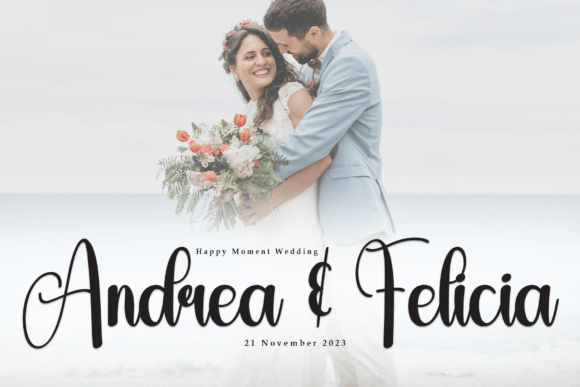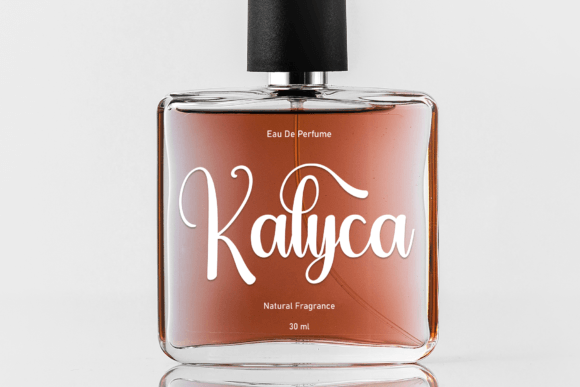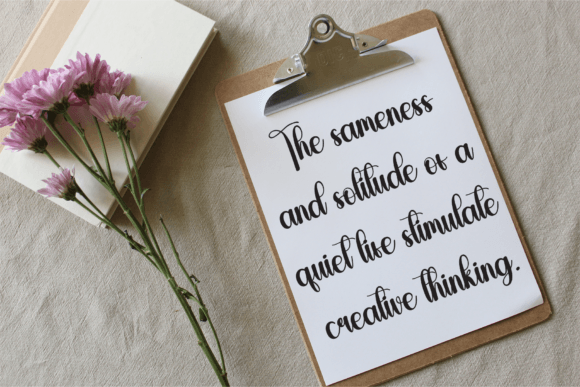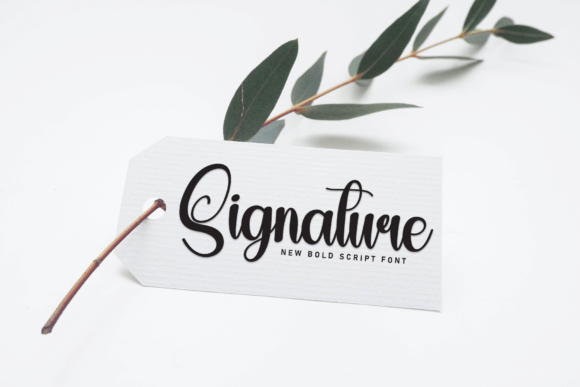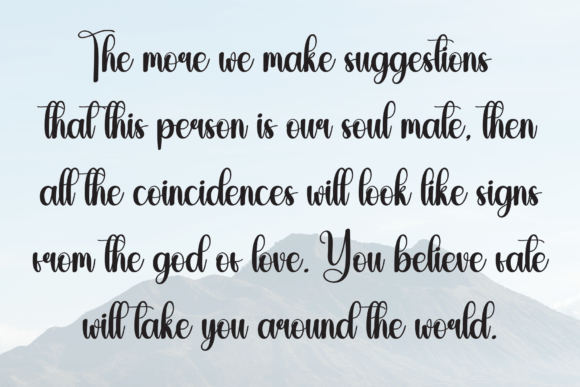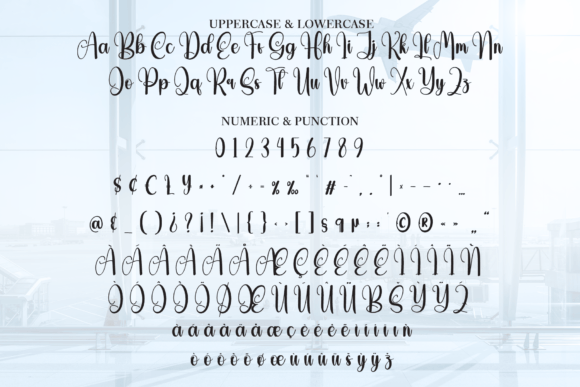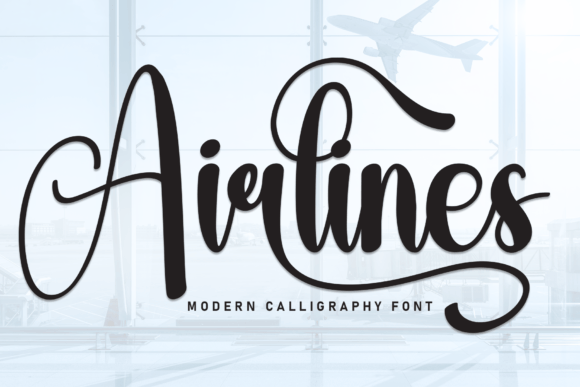
The Quest for the Perfect Font: Discovering Airlines
I still remember the design project that led me to discover the Airlines font. I was working on a logo design for a new boutique hotel, and I was struggling to find the right font that captured the elegance and sophistication of the brand. The client wanted something modern, yet luxurious, and I was determined to deliver. After hours of scouring font libraries and testing various typefaces, I stumbled upon Airlines – a stunning modern script calligraphy font that instantly caught my eye.
A First Impression: What I Love About Airlines
Airlines is more than just a font – it’s a statement piece. Here are a few things that I absolutely love about it:
- ✨ Elegant and sophisticated: Airlines exudes luxury and refinement, making it perfect for high-end branding and design projects.
- ✅ Unique flow: The font’s modern script calligraphy style has a distinct flow that sets it apart from other fonts.
- ✨ Versatile: Airlines is suitable for a wide range of design projects, from logo design and branding to covers, posters, and more.
The Not-So-Perfect: Small Quirks and Limitations
While Airlines is an exceptional font, it’s not without its quirks. Here are a few things to keep in mind:
- ⚠️ Limited use in body text: Due to its script nature, Airlines may not be the best choice for lengthy body text. It’s best suited for headings, titles, and short paragraphs.
- 🤔 Requires careful kerning: As with any script font, Airlines requires careful kerning to ensure that the text looks polished and refined.
The Story Behind Airlines
Airlines was designed by a team of typographers who aimed to create a modern script calligraphy font that captures the elegance and sophistication of luxury brands. Inspired by the flowing lines of calligraphy, the team crafted a font that’s both refined and stylish. The result is a versatile font that’s perfect for a wide range of design projects.
Here are some frequently asked questions about Airlines:
| What type of projects is Airlines suitable for? | Airlines is suitable for a wide range of design projects, including logo design, branding, covers, posters, and more. |
| Can I use Airlines for body text? | While Airlines is an elegant font, it’s best suited for headings, titles, and short paragraphs. It’s not recommended for lengthy body text. |
| Does Airlines support OpenType features? | Yes, Airlines supports OpenType features, including glyphs and stylistic alternates. |